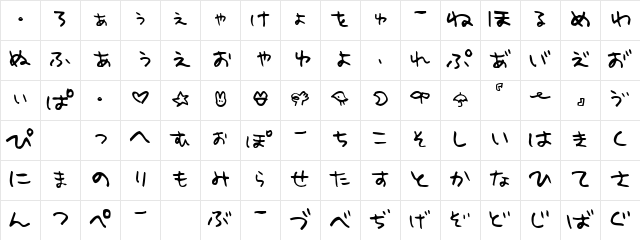
Holiday Hiragana
Design Context for Holiday Typeface
Holiday is a composed and adaptable typeface that performs quietly and consistently across a wide range of design contexts.